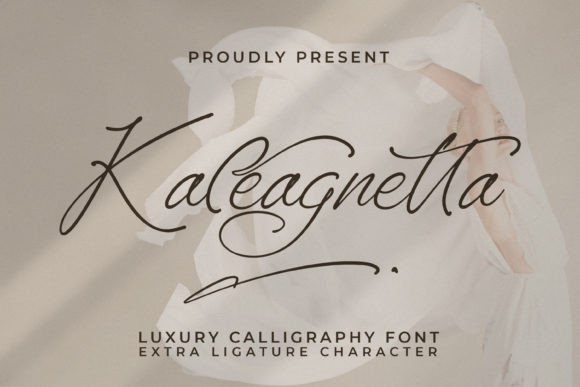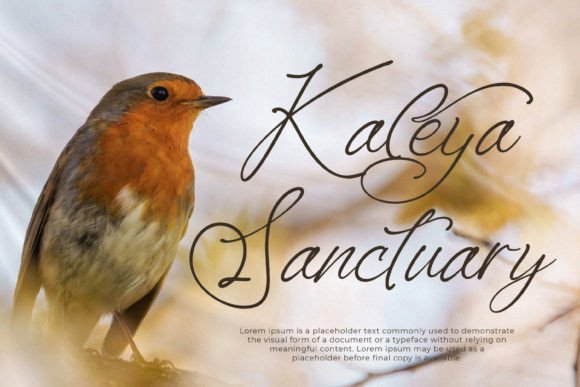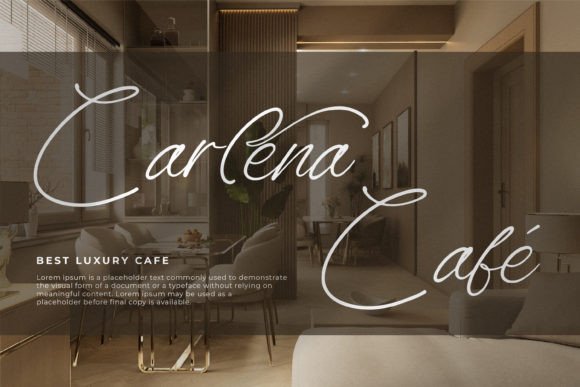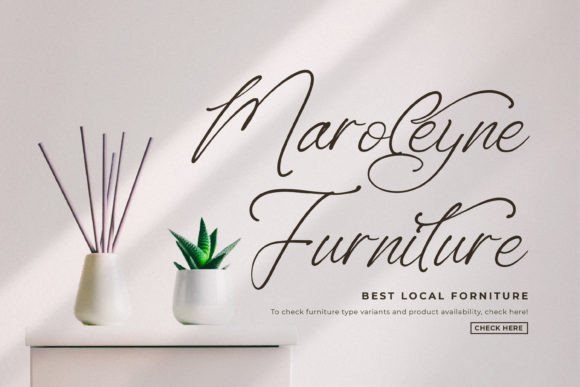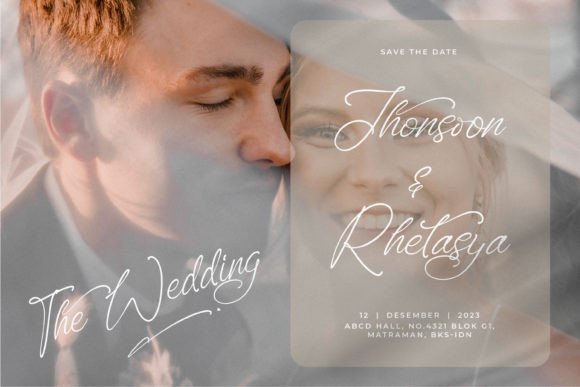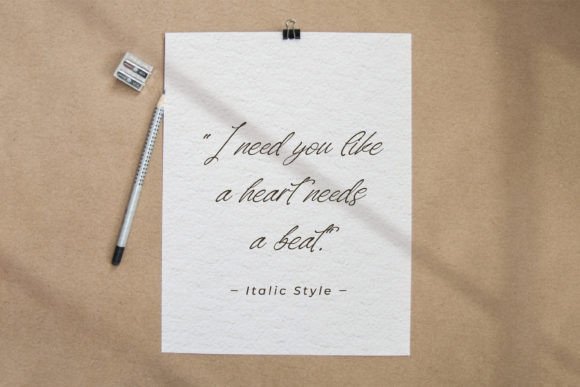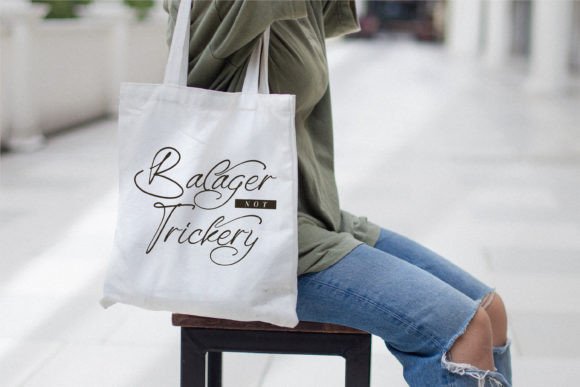
The Art of Luxury Calligraphy: Introducing Kaleagnetta Font
As a designer, there’s nothing quite like the thrill of bringing a project to life. The rush of creativity, the precision of detail, and the satisfaction of seeing your vision take shape on the page. For those of us who live for this moment, the right tools can make all the difference. That’s where Kaleagnetta – Luxury Calligraphy Font comes in – a premium font designed to elevate your work to new heights.
Perfect for any luxury project that demands a touch of sophistication, Kaleagnetta Font is more than just a font – it’s a statement piece. With its elegant script and refined aesthetic, it’s the perfect addition to logos, branding projects, homewares designs, and so much more. Whether you’re a seasoned pro or just starting out, Kaleagnetta Font is a valuable asset in your design toolkit.
- Font Type: Script, Calligraphy
- Size: 5 styles, ranging from Light to Extra Bold
- Unique Characteristics: Hand-drawn, elegant script with intricate details and flourishes, ideal for invitations, wedding designs, and luxury branding
- Language Support: Latin, Cyrillic, Greek, and many other languages
Kaleagnetta Font Review
I recently had the chance to work with the Kaleagnetta font, and I must say it’s a mixed bag. Here are my thoughts:
- Unique Character: Kaleagnetta has a distinct, quirky feel to it that sets it apart from other fonts. It’s perfect for designers looking to add a bit of personality to their work.
- Good Legibility: Despite its unconventional look, Kaleagnetta is surprisingly easy to read, even at smaller font sizes.
- Large Character Set: The font comes with a wide range of characters, including accents and punctuation marks, making it suitable for a variety of projects.
- Limited Flexibility: Kaleagnetta is a display font, and it’s not ideal for body text or long passages of text. It can be a bit overwhelming if used extensively.
- Not Ideal for Small Text: While Kaleagnetta is legible at larger font sizes, it can become difficult to read at smaller sizes, making it less suitable for mobile or web applications.
Overall, Kaleagnetta is a great font for designers who want to add a bit of whimsy to their work. However, it’s not a one-size-fits-all solution, and it’s best used in moderation. With some careful planning and consideration, Kaleagnetta can be a fantastic addition to your design arsenal.
Getting the Most Out of Kaleagnetta Font
For the best results, use Kaleagnetta Font in bold or italic styles to add emphasis to your text.
Experiment with different font sizes and colors to create visually appealing designs.
Kaleagnetta Font is ideal for:
1. Creative projects, such as infographics, posters, and flyers.
2. Branding materials, such as business cards, letterheads, and logos.
Alternatives to Kaleagnetta Font
The Great Vibes Font is a modern, elegant script font that is perfect for creating eye-catching headings and titles. It is highly versatile and can be used for both digital and print media. Great Vibes is more flowing and elegant compared to Kaleagnetta, which is more playful and quirky.
The Pacifico Font is a beautiful, cursive script font that is ideal for creating a relaxed and beachy vibe. It is perfect for use in brochures, magazines, and websites that require a touch of sophistication. Pacifico is more elegant and refined compared to Kaleagnetta, which has a more whimsical feel.
The Carolyna Pro Font is a stylish, modern script font that is perfect for creating a luxurious and high-end look. It is highly customizable and can be used for a wide range of applications, from branding to advertising. Carolyna Pro is more sophisticated and polished compared to Kaleagnetta, which has a more playful and quirky feel.
The Alex Brush Font is a beautiful, handwritten script font that is perfect for creating a personal and emotional connection with your audience. It is highly expressive and can be used for a wide range of applications, from branding to editorial design. Alex Brush is more delicate and whimsical compared to Kaleagnetta, which has a more bold and playful feel.